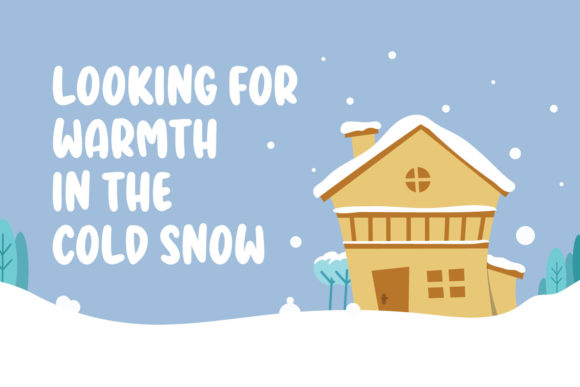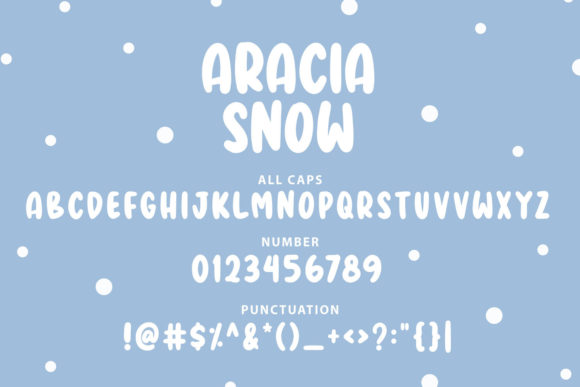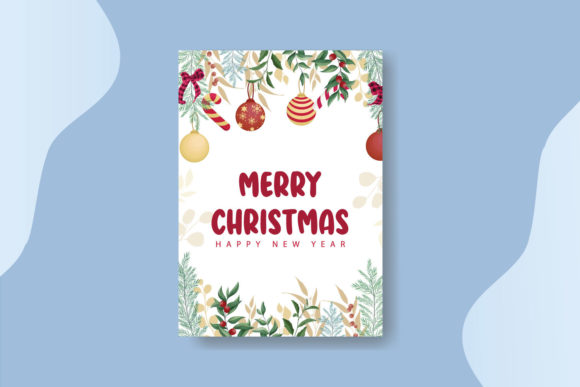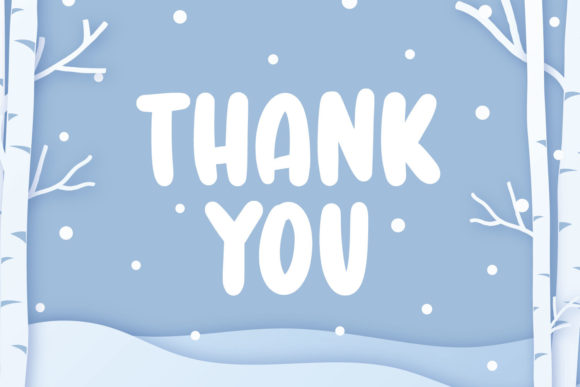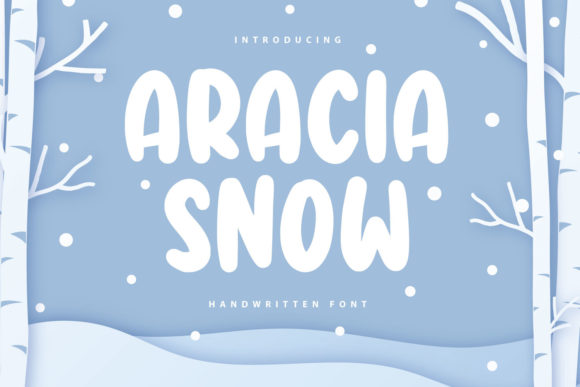
Aracia Snow Font: The Perfect Addition to Your Winter Designs
As the winter season approaches, designers and crafters are on the lookout for the perfect fonts to add a touch of magic to their projects. If you’re searching for a font that embodies the whimsy and charm of the snow season, look no further than Aracia Snow Font. This adorable display font is carefully handcrafted to become a true favorite among designers, and for good reason.
What Makes Aracia Snow Font So Special?
Aracia Snow Font is a cute display font that is sure to make your designs stand out. Its unique and playful style is perfect for adding a touch of winter wonder to your projects. Whether you’re designing a festive holiday card, a snow-themed invitation, or a winter-inspired craft, Aracia Snow Font is the perfect choice. Its handcrafted design ensures that every letter is carefully crafted to bring a sense of whimsy and charm to your designs.
One of the best things about Aracia Snow Font is its versatility. This font will look outstanding in any context, whether it’s being used on busy backgrounds or as a standalone headline. Its bold and playful style ensures that it will cut through even the most cluttered of designs, making it the perfect choice for designers who want to make a statement.
Aracia Snow Font is a must-have for designers and crafters who want to add a touch of winter magic to their projects. Whether you’re a professional designer or a crafty DIY enthusiast, this font is sure to become a favorite in your collection. Its easy-to-use design makes it perfect for a wide range of projects, from digital designs to handmade crafts.
Key Features of Aracia Snow Font
- Handcrafted design for a unique and playful style
- Perfect for winter-themed designs, including holiday cards and snow-inspired crafts
- Versatile font that will look great in any context, from busy backgrounds to standalone headlines
- Perfect for designers and crafters of all skill levels
Tips for Using Aracia Snow Font